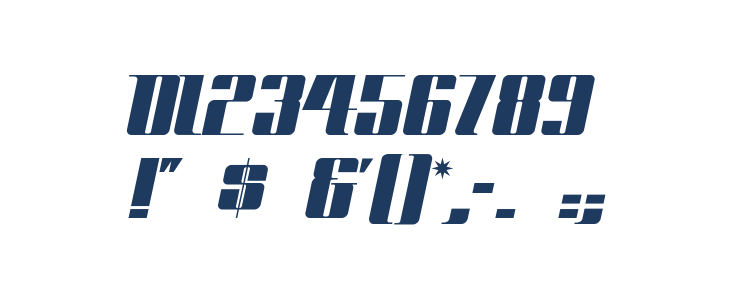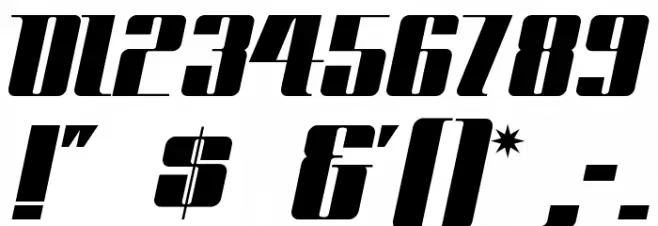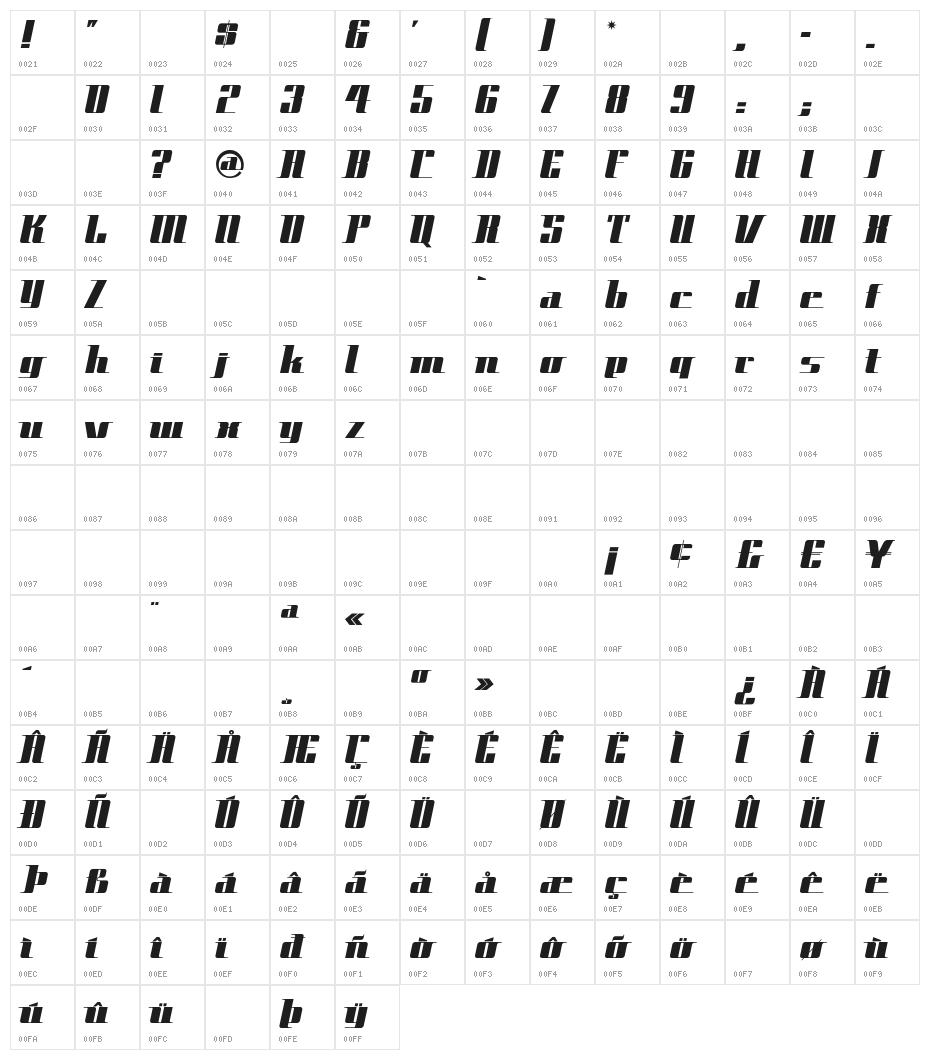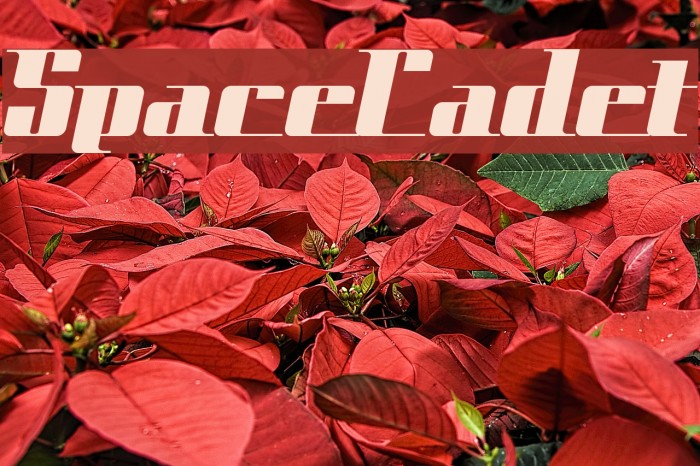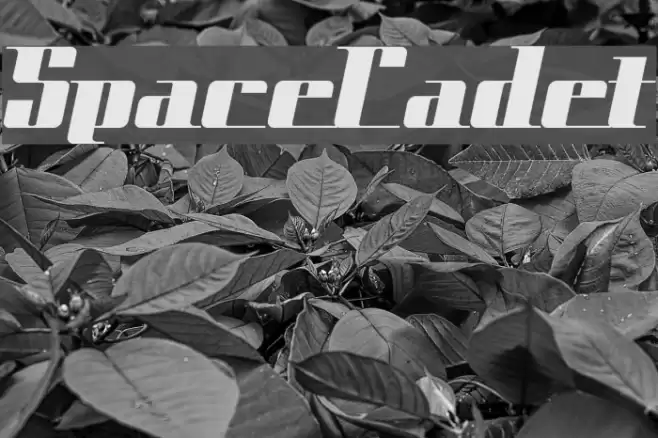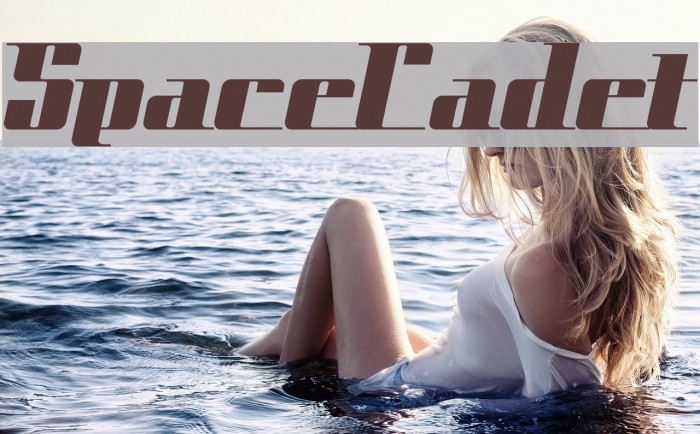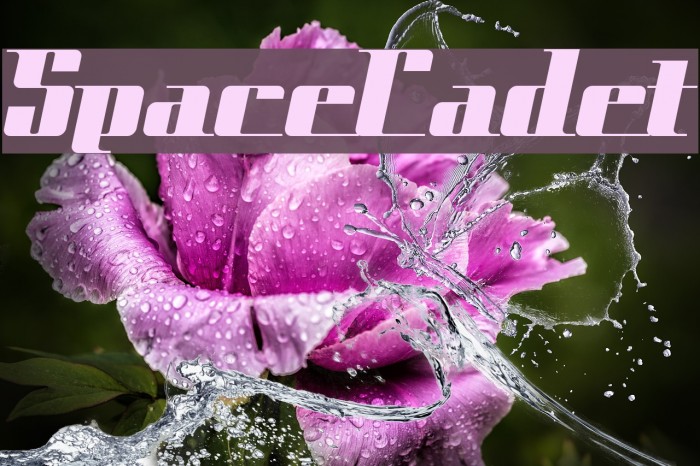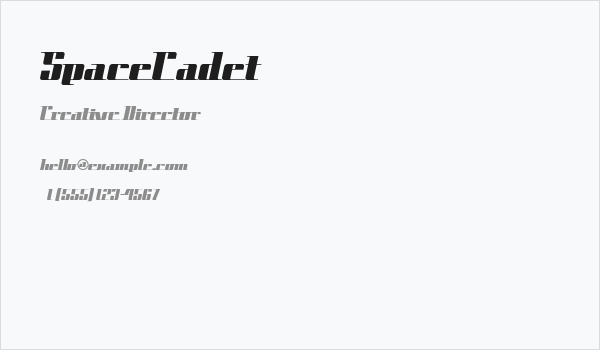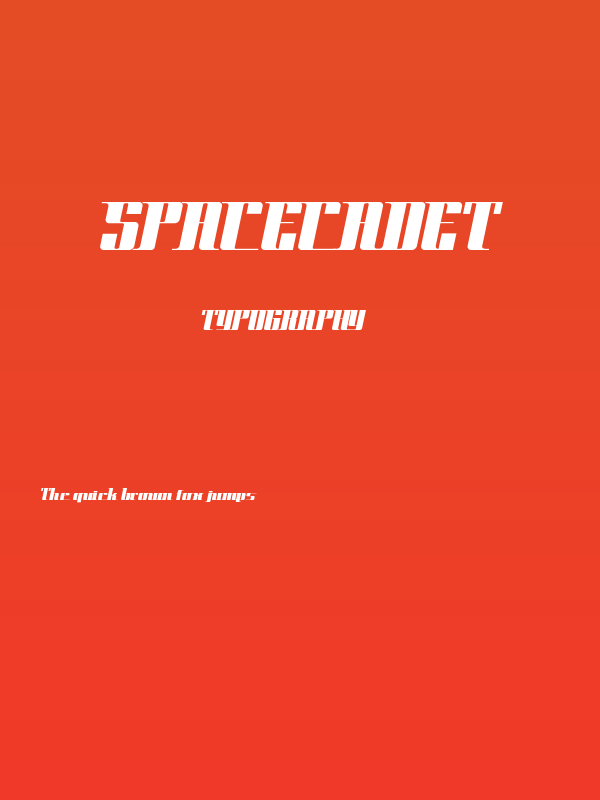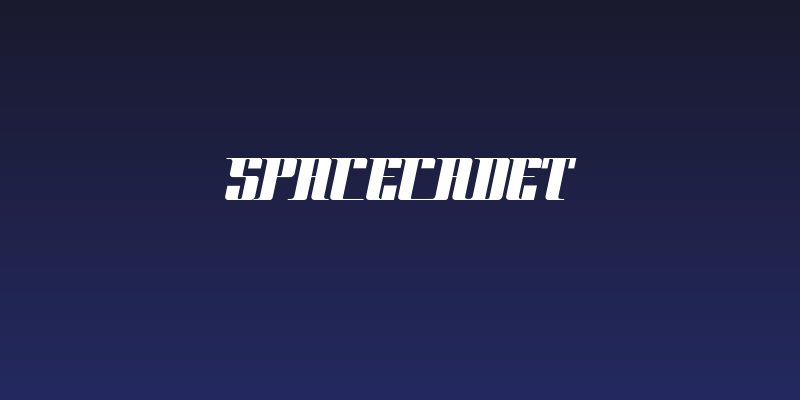
SpaceCadet Font
SpaceCadet Description
This font exhibits a futuristic and angular design, characterized by its sharp edges and dynamic slant. The uppercase letters are bold and elongated, giving a sense of movement and speed. The lowercase letters maintain the same angular style, with a slightly more compact form. Numbers are designed with a similar aesthetic, ensuring consistency across all characters. Special characters are integrated seamlessly, maintaining the overall geometric and modern feel. This font is ideal for projects that require a bold, contemporary look with a touch of sci-fi inspiration.
| Proposed Projects | Ideal for sci-fi movie posters, tech company logos, video game titles, and futuristic branding. |